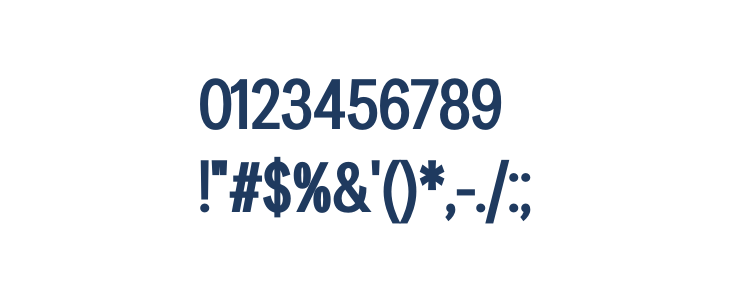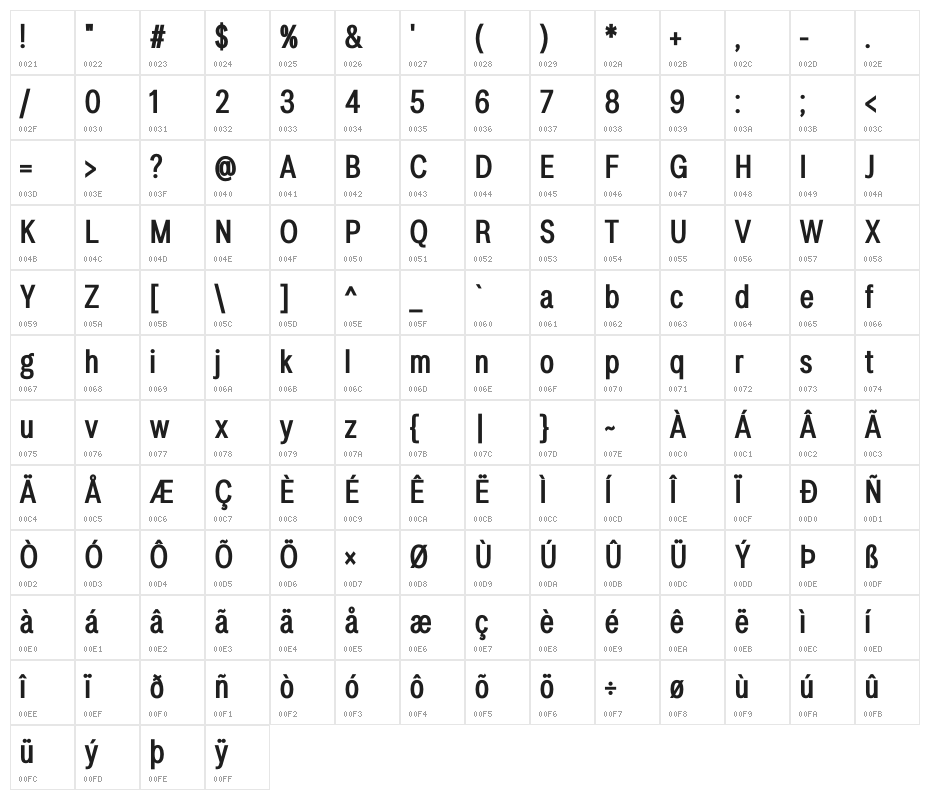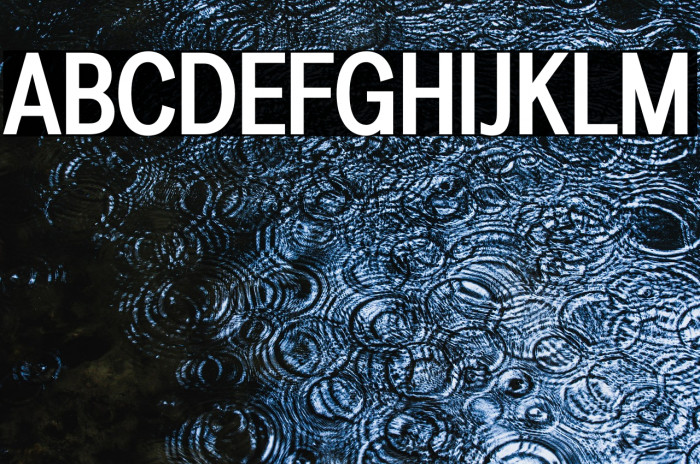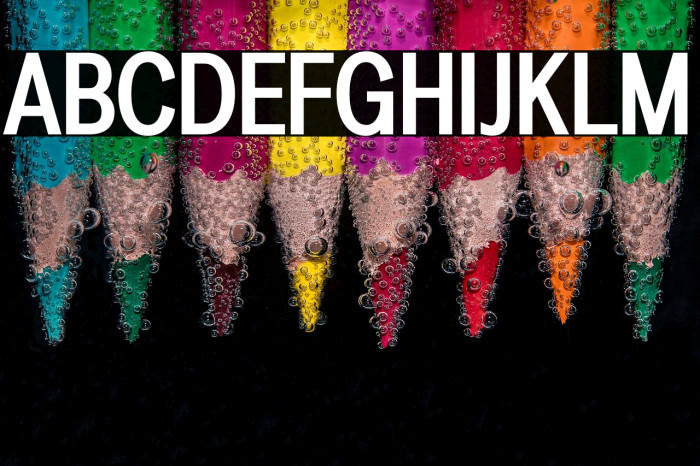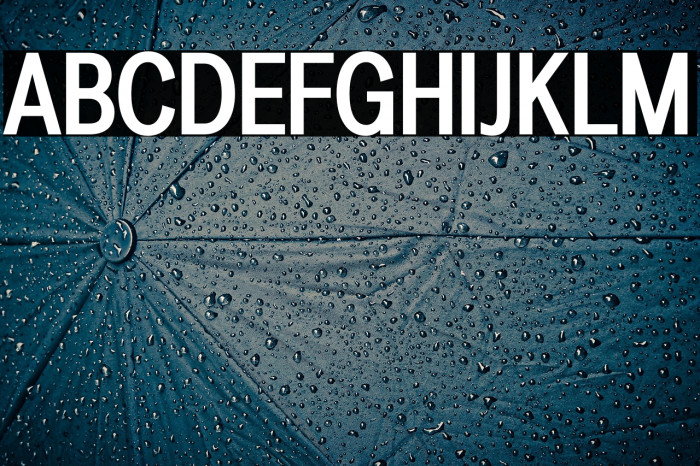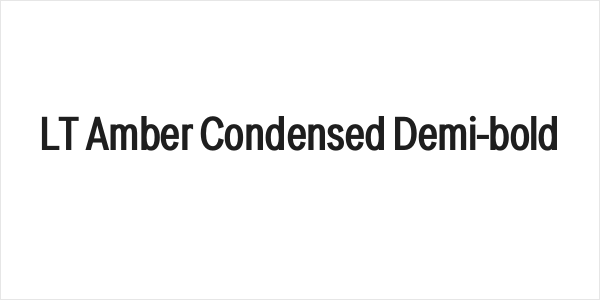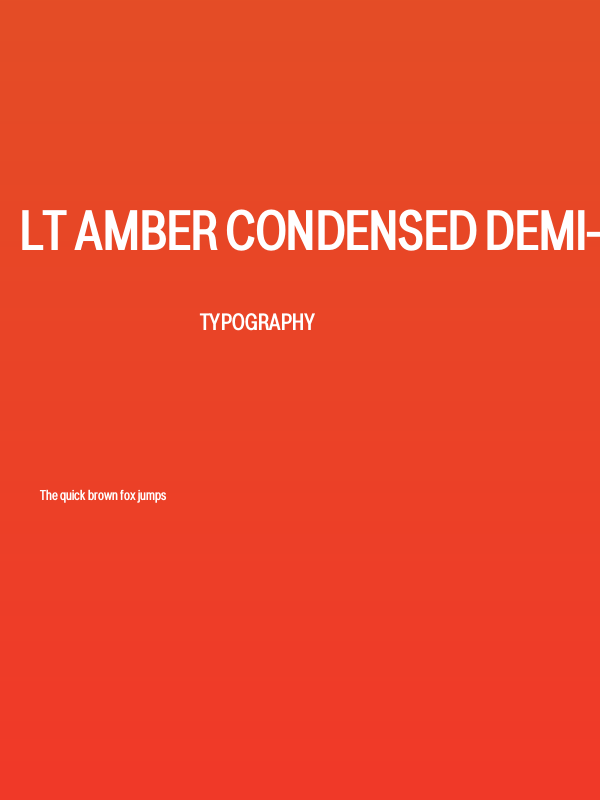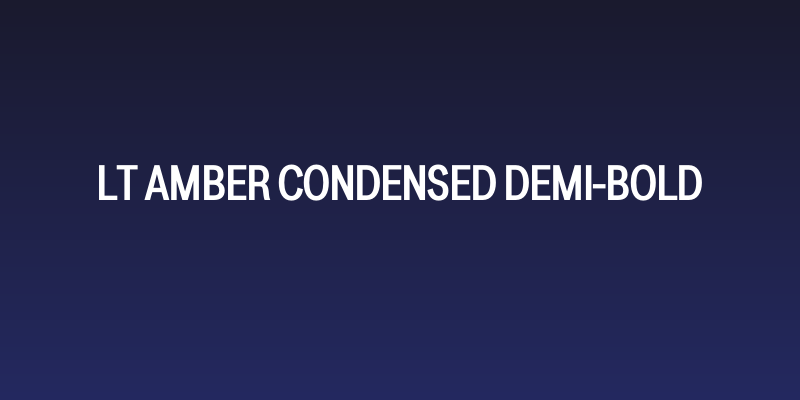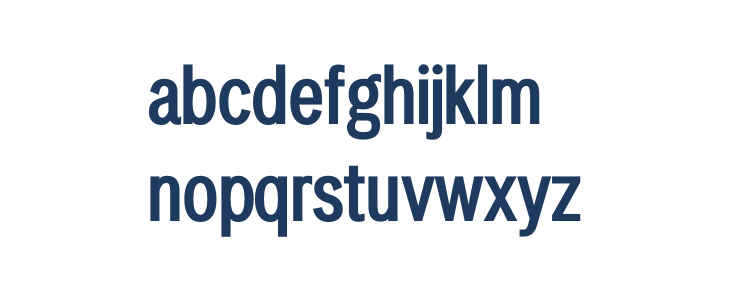
LT Amber Condensed Demi-bold Font
LT Amber Condensed Demi-bold Description
This font features a bold and condensed style, offering a strong and impactful presence. The uppercase letters are tall and commanding, while the lowercase letters maintain a consistent and cohesive look. The numerals are clear and straightforward, ensuring readability. Special characters are well-defined, adding versatility to the font's usage. The overall design is modern and clean, making it suitable for a variety of applications where a bold statement is needed.
| Proposed Projects | Ideal for headlines, posters, branding, and advertising where a strong visual impact is desired. |